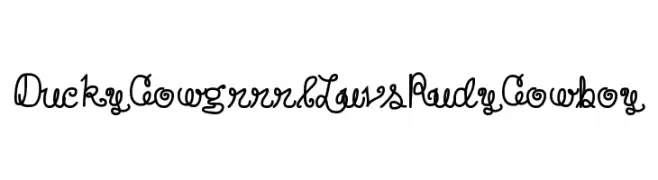
An abstract, decorative design with intricate loops and curves.
A whimsical, cursive script font with elegant flourishes and loops.
An elegant, antique-style cursive font with intricate loops and swirls.
A whimsical, decorative script font with intricate swirls and loops.
An elegant script font with intricate loops and decorative flourishes.
An artistic and decorative font with intricate loops and swirls.
An artistic, decorative font with intricate swirls and loops.
An elegant and ornate script font with intricate loops and swirls.
A whimsical, cursive font with playful loops and swirls.
An elegant script font with flowing, cursive strokes and refined loops.
A whimsical, cursive script font with elegant loops and swirls.
A modern decorative font with playful curves and loops.
A playful, cursive font with flowing loops and decorative swirls.
A bold, decorative font with intricate swirls and loops.
A whimsical and decorative font with intricate loops and artistic flair.
An ornate and decorative script font with intricate loops and swirls.
An elegant cursive font with ornate loops and swashes, perfect for formal and decorative use.
A whimsical, decorative font with looping, swirling strokes and calligraphic flair.
A whimsical, handwritten font with playful curls and loops.
An ornate and decorative font with intricate loops and flourishes.
A decorative font with whimsical swirls and loops.
A whimsical, decorative font with playful swirls and loops.
An elegant and flowing script font with intricate loops and swashes.
An elegant and flowing script font with ornate loops and flourishes.